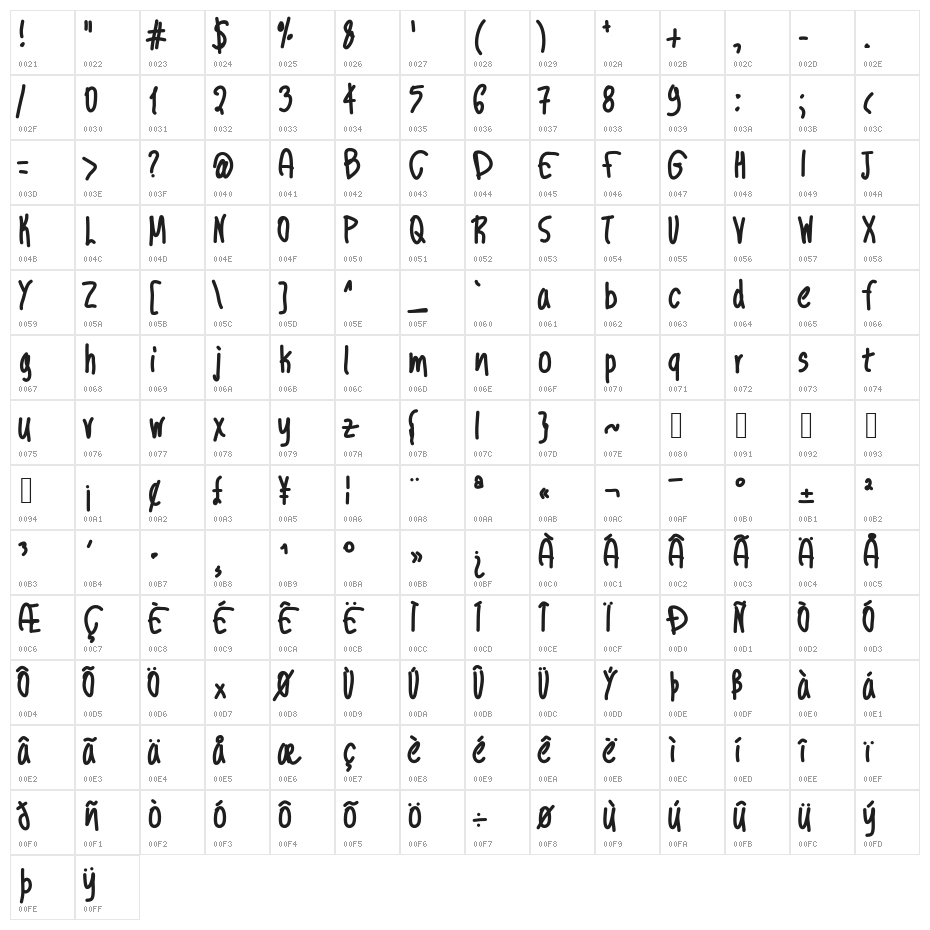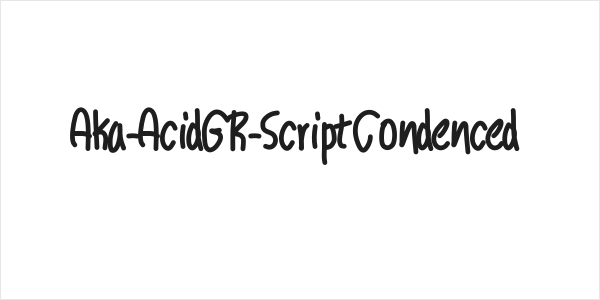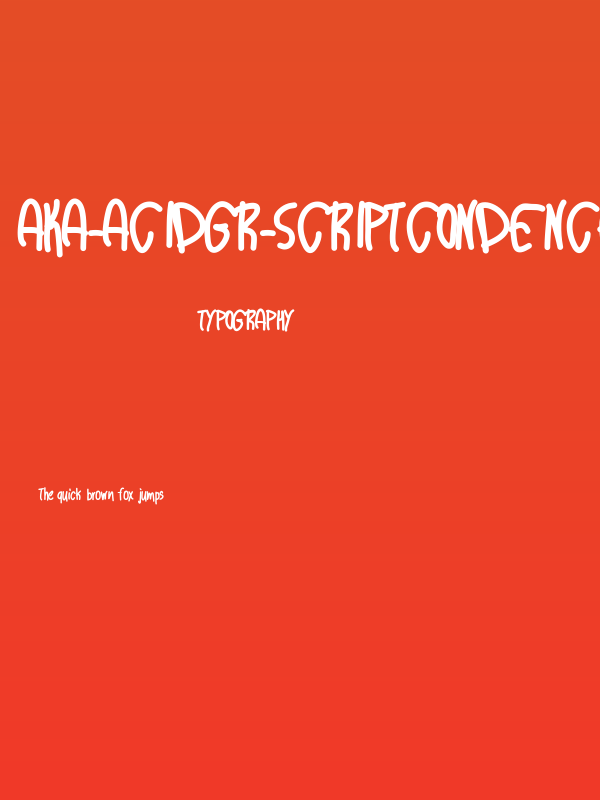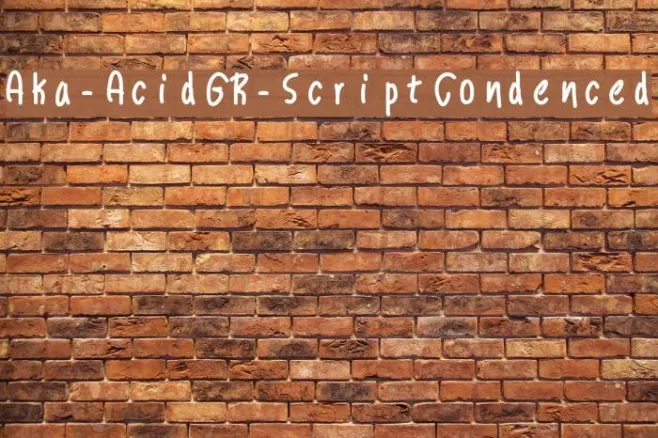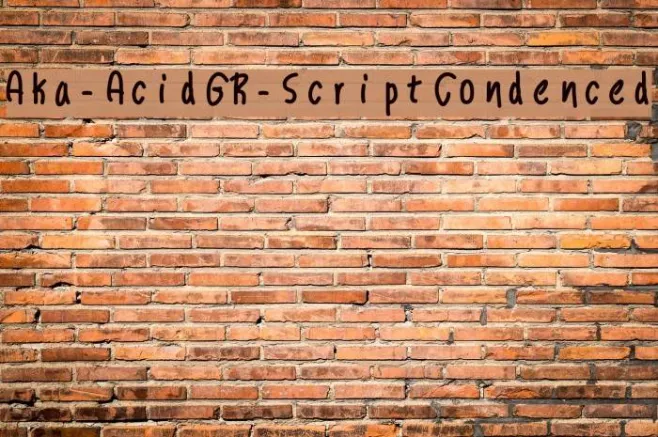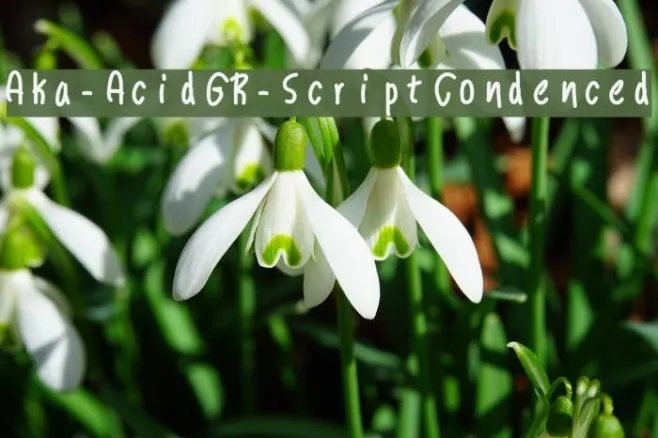
Aka-AcidGR-ScriptCondenced Font
Aka-AcidGR-ScriptCondenced Description
This font features a playful and casual script style with a condensed appearance. The letters are slightly irregular, giving it a hand-drawn, organic feel. The strokes are bold and rounded, contributing to a friendly and approachable look. The uppercase and lowercase letters maintain a consistent style, with a slight slant that adds to the dynamic nature of the font. Numbers and special characters are designed to match the overall aesthetic, ensuring a cohesive look across all text elements. This font is suitable for projects that require a personal touch, such as invitations, greeting cards, or playful branding.
| Proposed Projects | Ideal for invitations, greeting cards, playful branding, and casual design projects. |